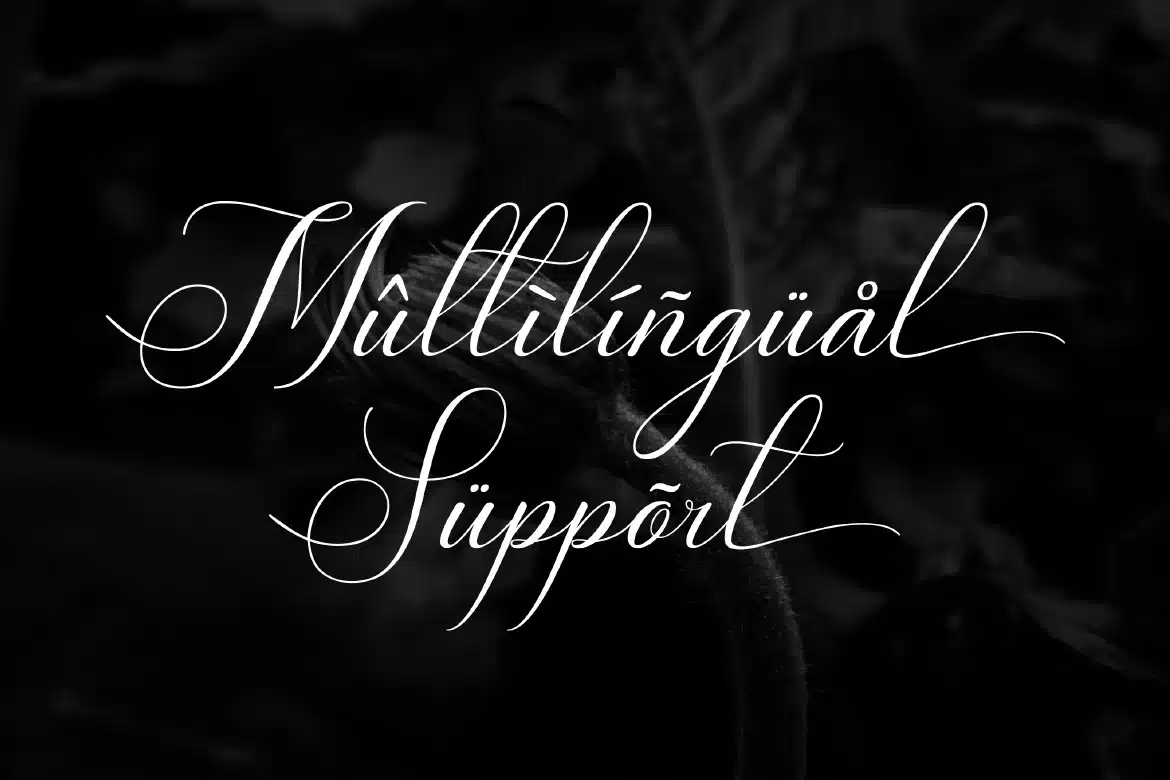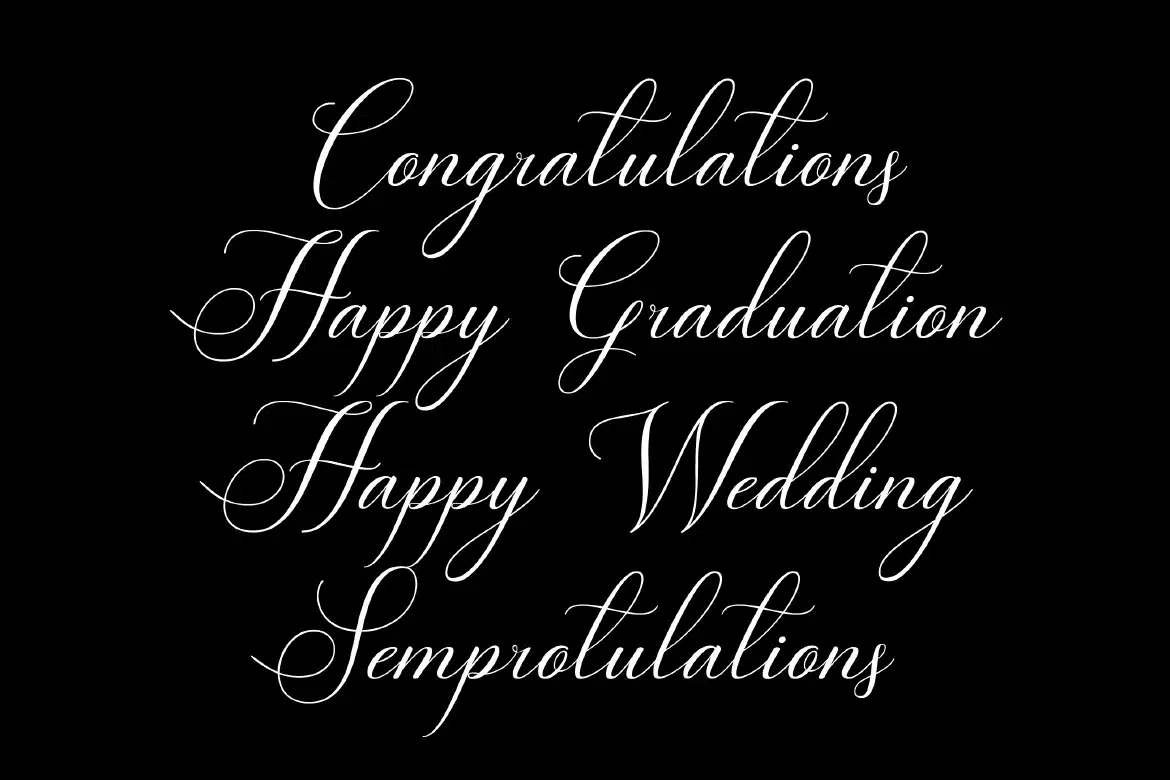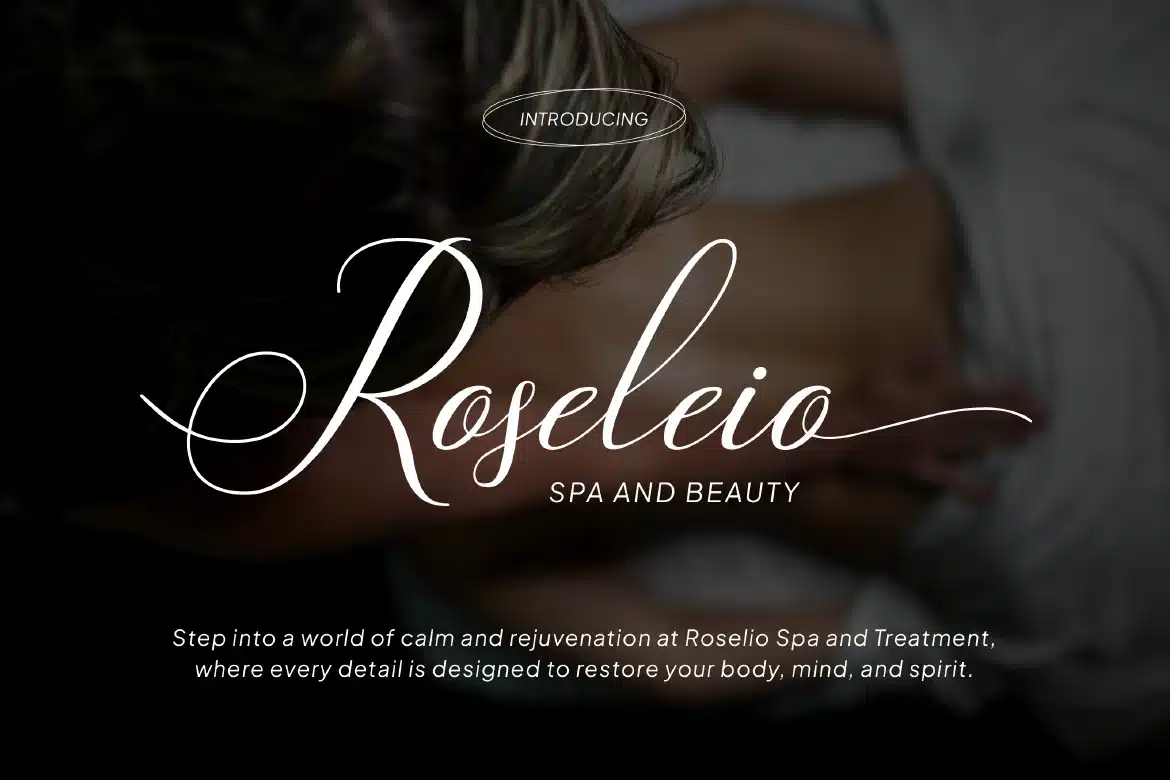
Script Calligraphy – Brithney Font
Script Calligraphy Font - Brithney
Brithney is a beautiful script calligraphy font that brings elegance, grace, and a personal handwritten touch to your designs. Crafted with flowing strokes and delicate curves, this font captures the natural rhythm of modern calligraphy, creating a stylish and sophisticated visual style that feels both romantic and expressive.
Who Should Use Brithney?
Brithney is perfect for designers, creatives, and entrepreneurs who want to add an elegant and handwritten feel to their projects. It’s especially ideal for those working on designs that require a romantic, stylish, and personal touch.
Wedding invitations and stationery
Signature logos and branding
Beauty and fashion projects
Luxury packaging design
Social media graphics
Greeting cards
Quotes and typography
Elegant promotional materials